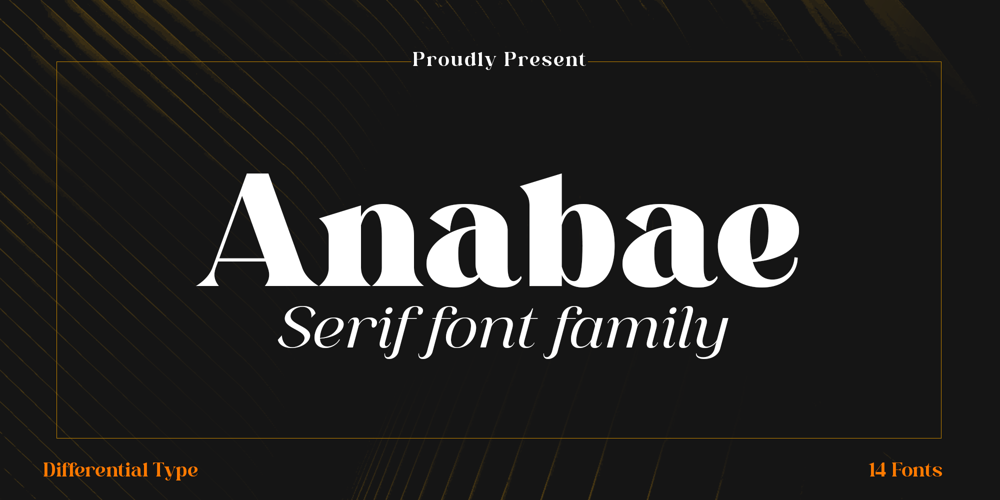
Anabae Font Family was designed by Sidik Sidik and published by Differentialtype. Anabae contains 14 styles and family package options. Anabae is a modern high-contrast serif font.Anabae came with 7 weights accompanied by 7 italics. The simple morphology makes it very easy to read, and is perfect for displaying in any project you create.The bold size is also perfect as a display font.